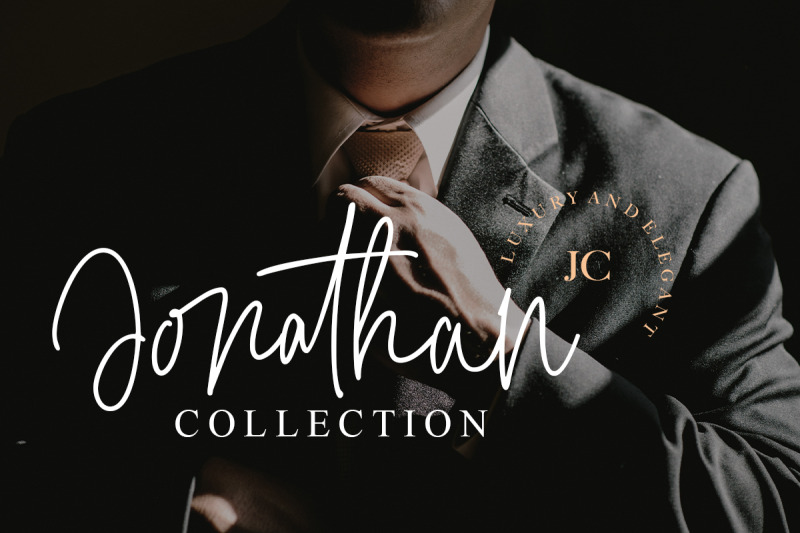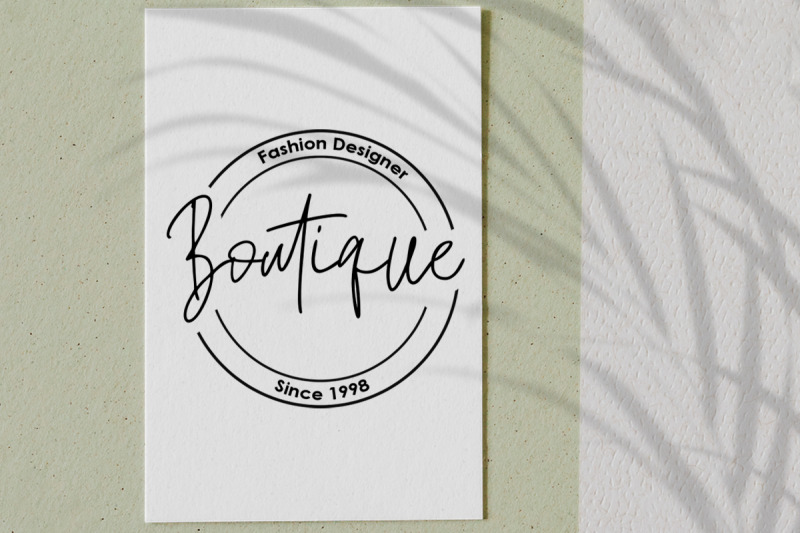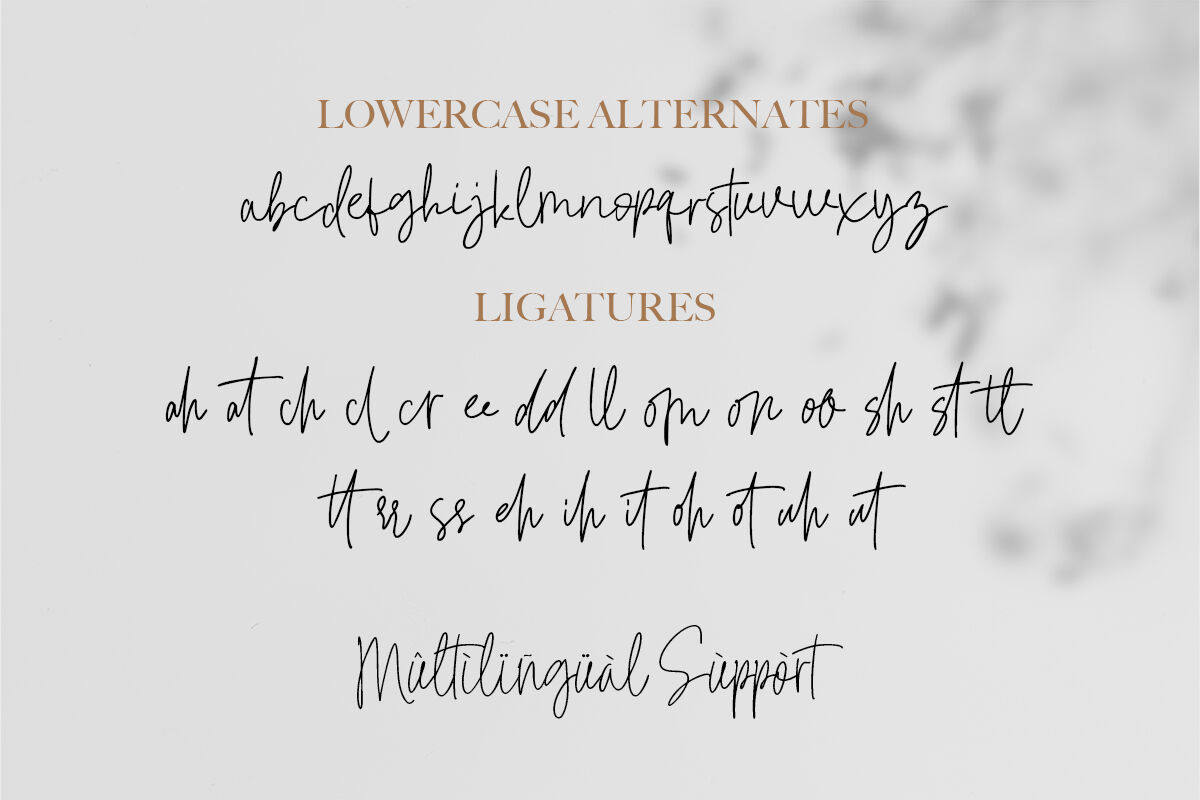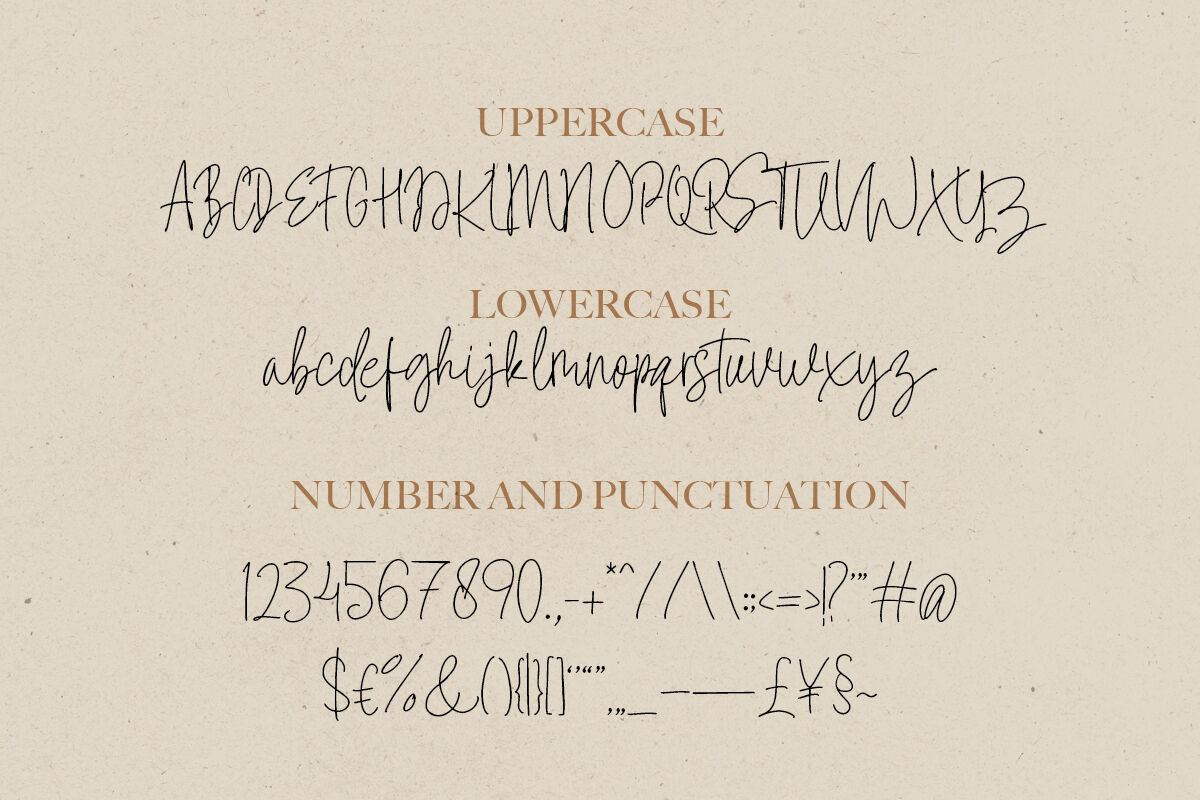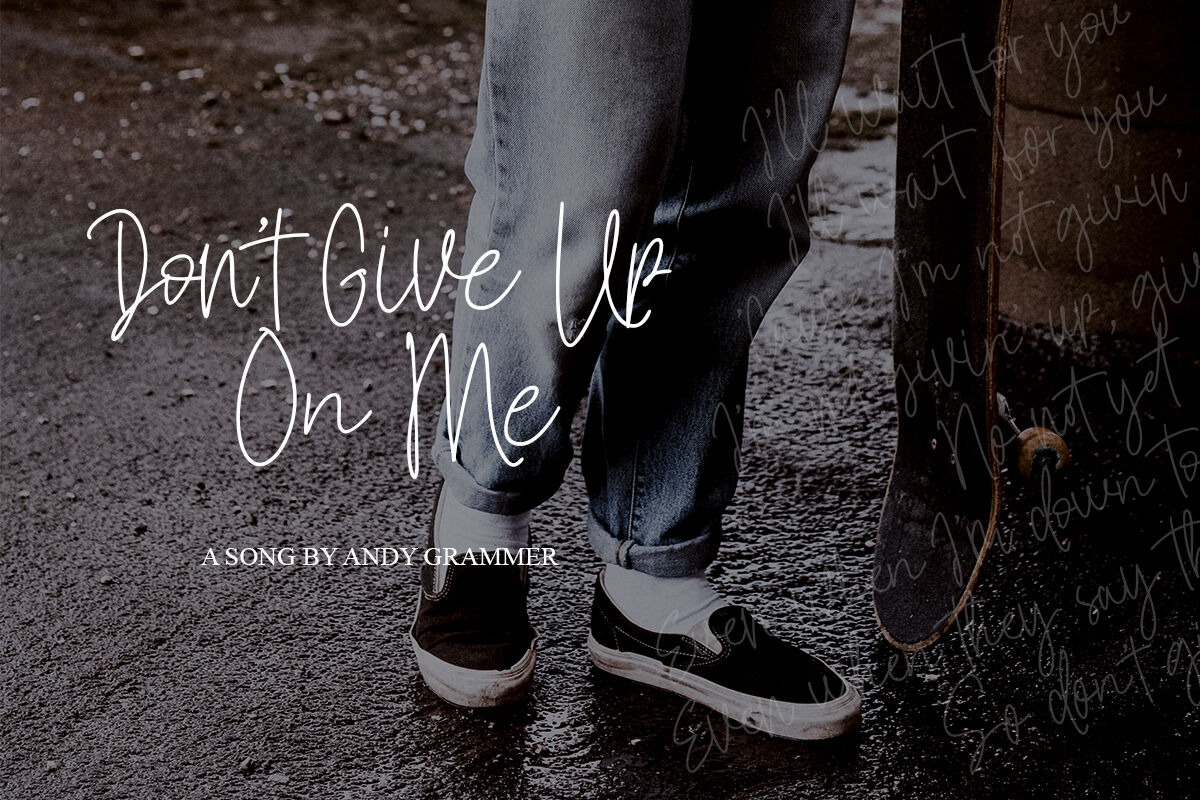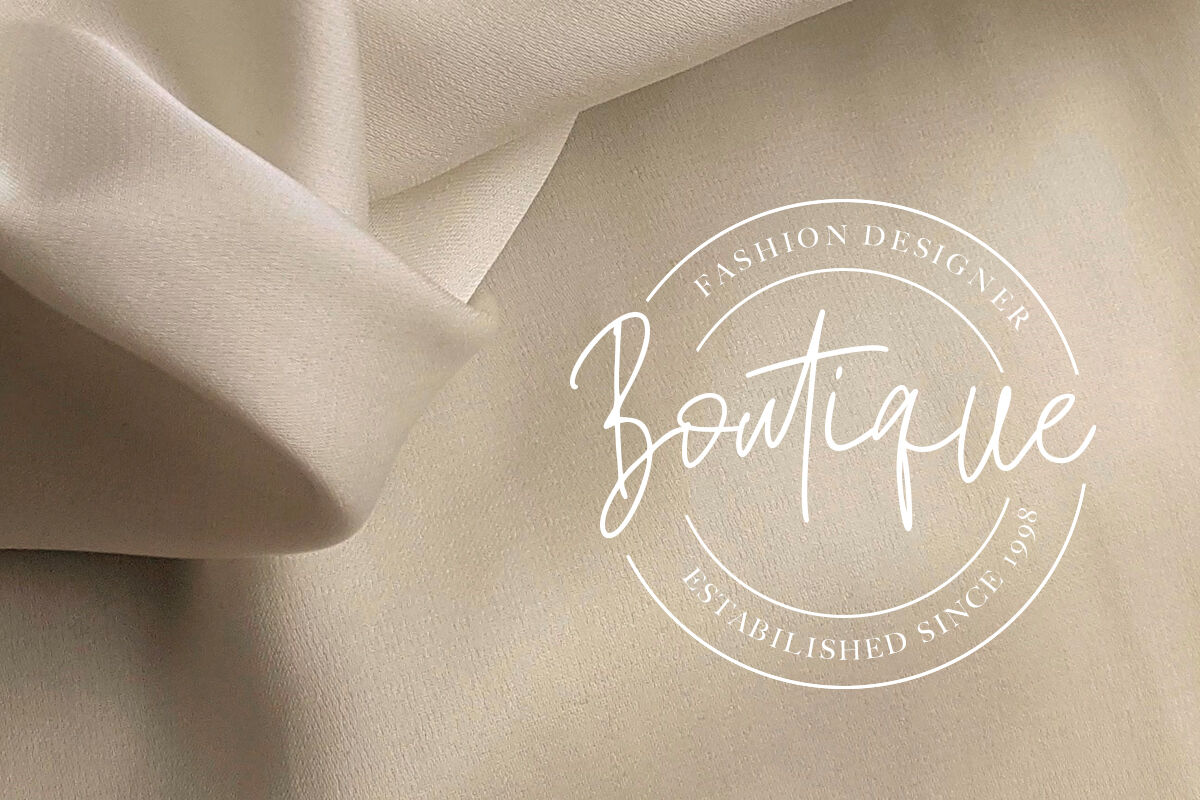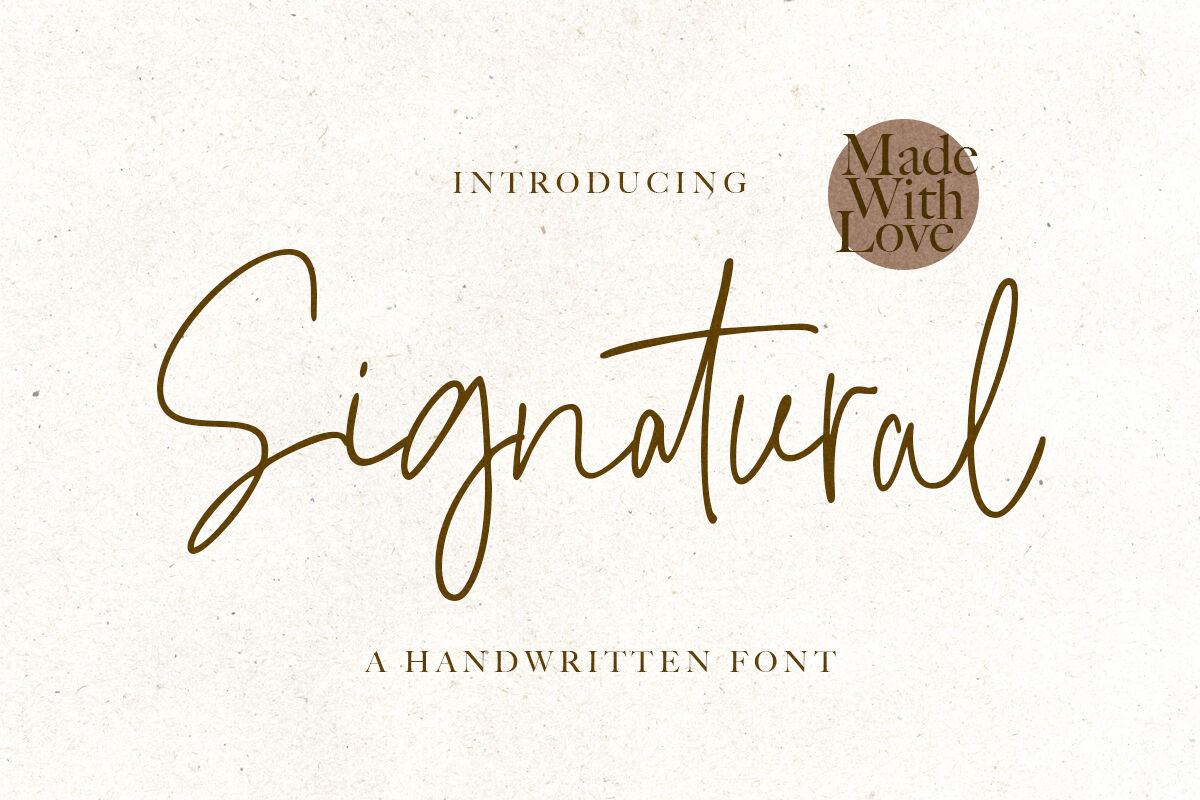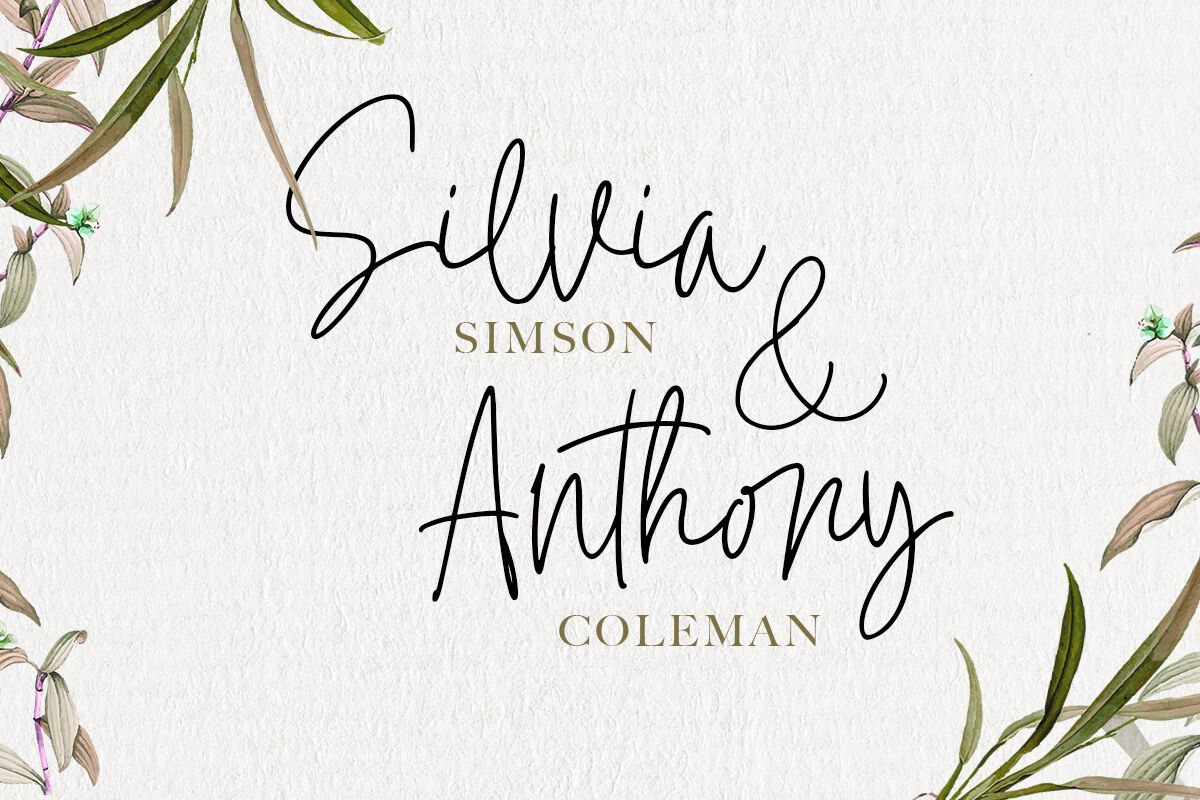
Signatural - Handwritten Font
Signatural is a handwritten font with many ligatures that will make your design looks more natural. This font was made with love to make your project looks beautiful and unique with a hand touch feeling. With a simple step, you can use this font for many project like for logo, branding, fashion design, quotes, etc. Signatural also support Multi Language!